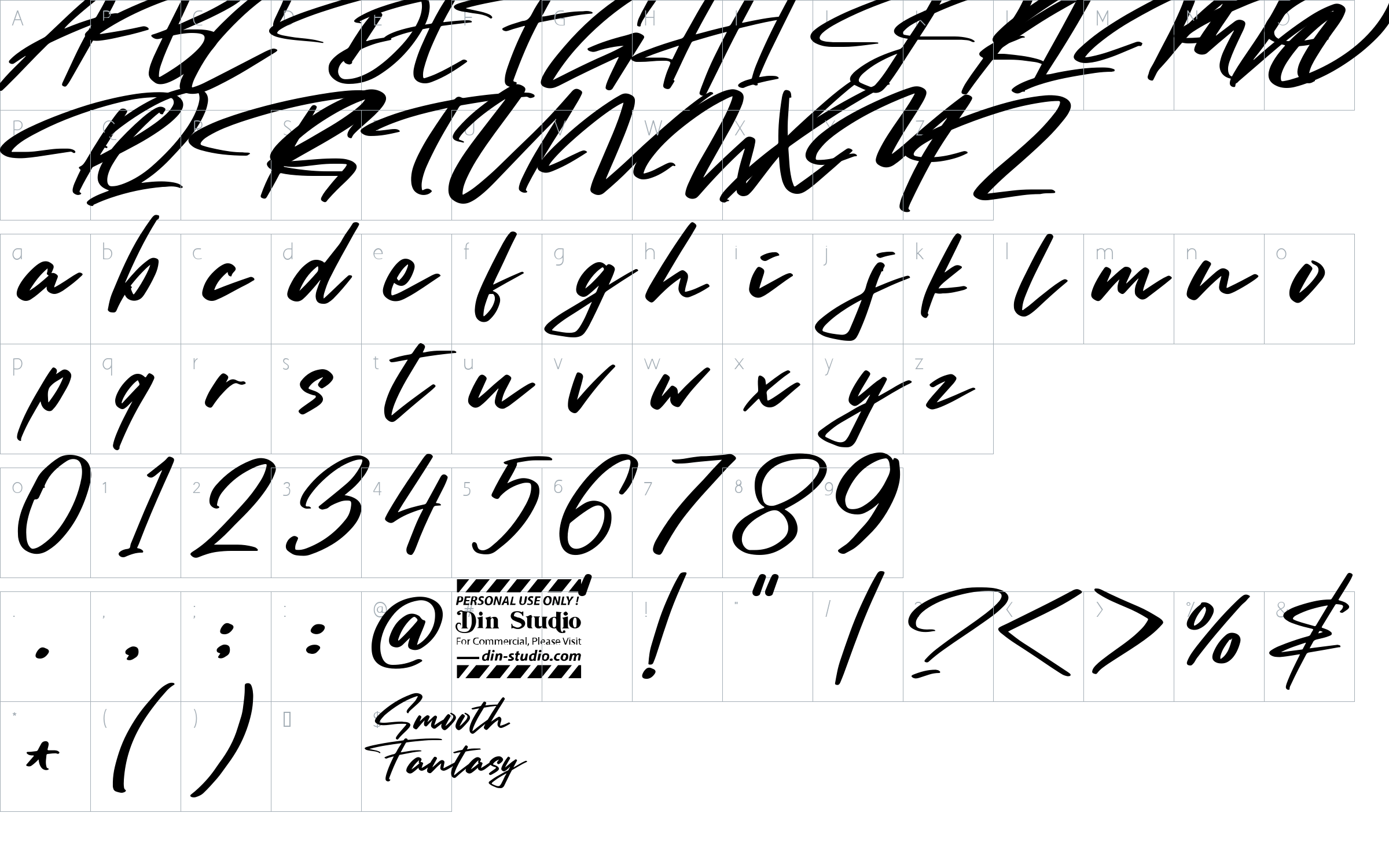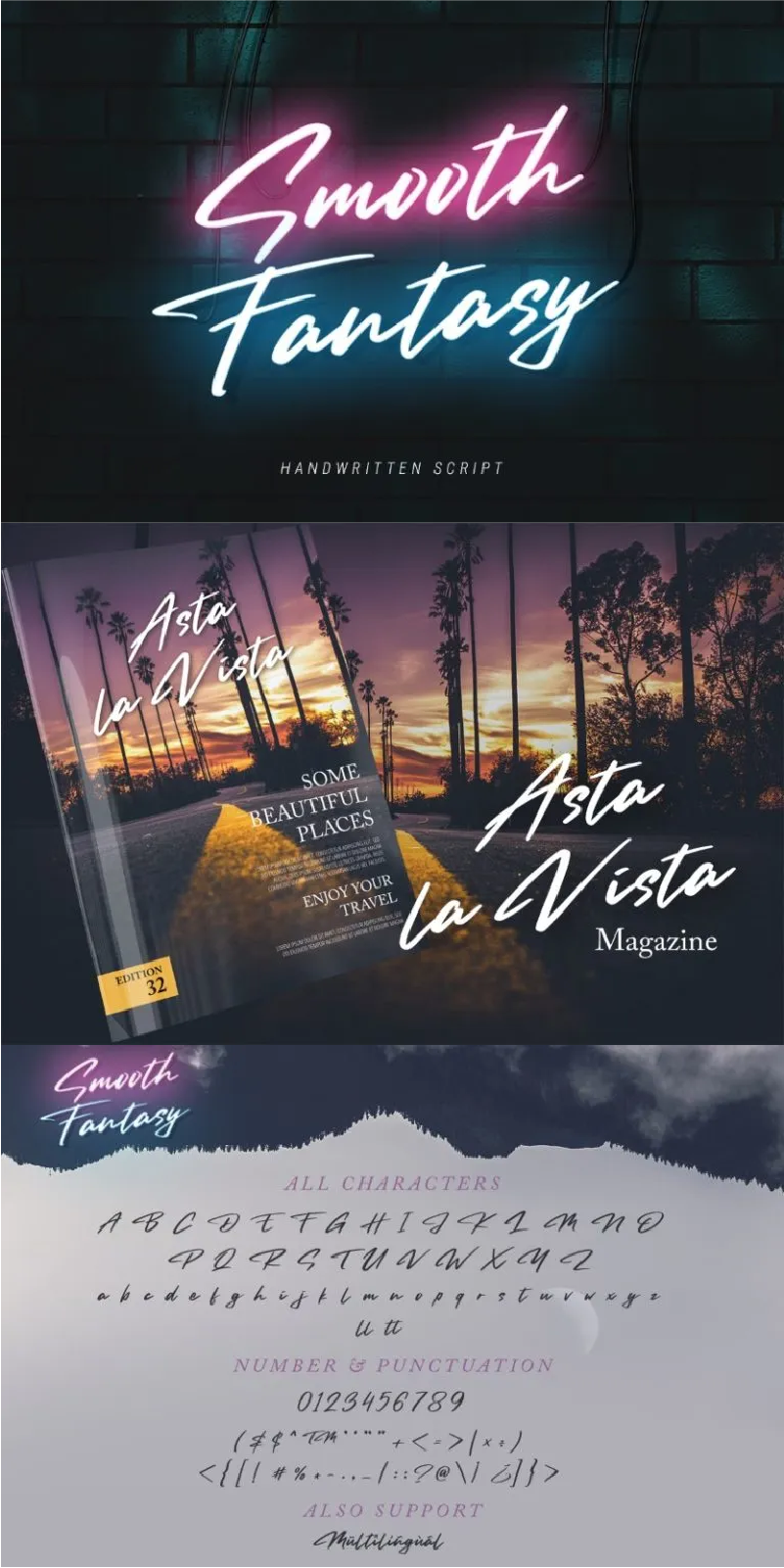
Smooth Fantasy Font
About Smooth Fantasy
Smooth Fantasy. It has a lovely typeface that complements its chic and natural handwritten style. Smooth Fantasy is ideal for logos, branding, quotes, and other projects that require handwriting. This font was created specifically for those of you who want to add a touch of elegance to your projects and achieve flawless results.